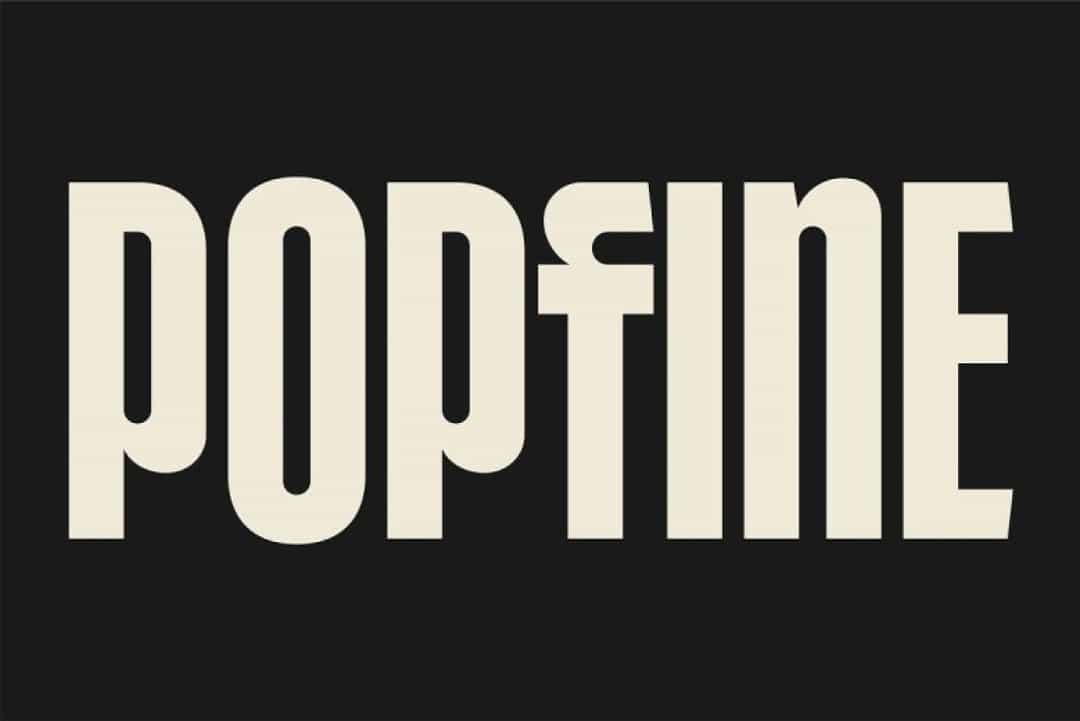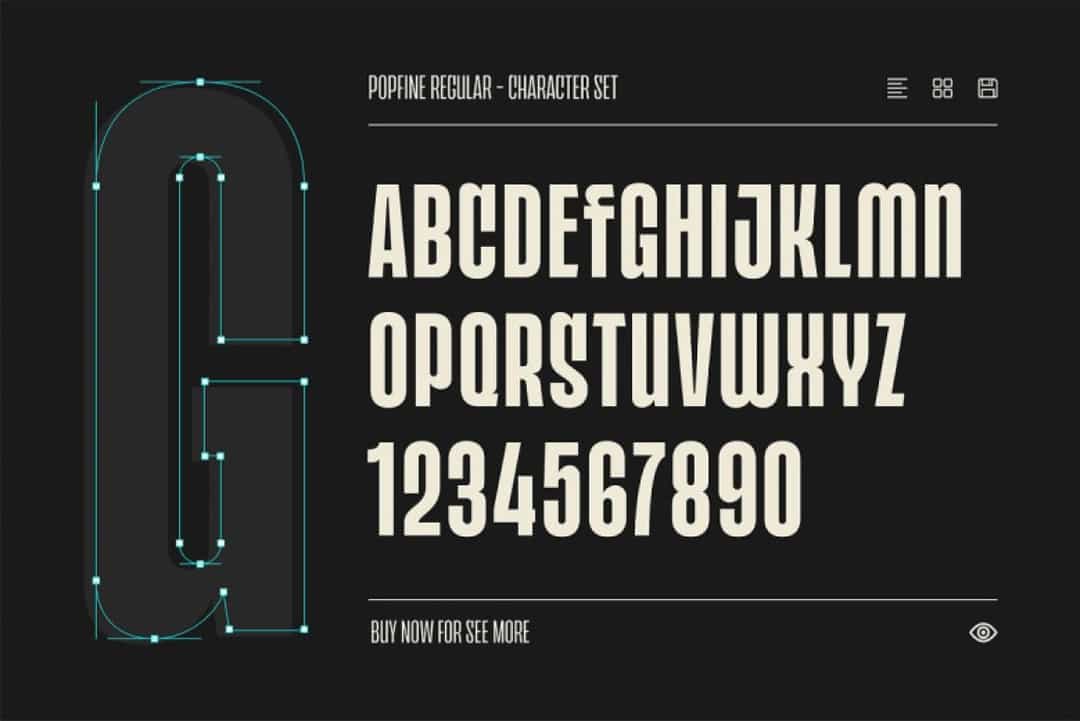
Popfine is a sans serif font with two styles available – normal and italic. This versatile font makes creating your own work much simpler – branding films, film titles packaging, advertising posters or web applications can all use this font effectively!